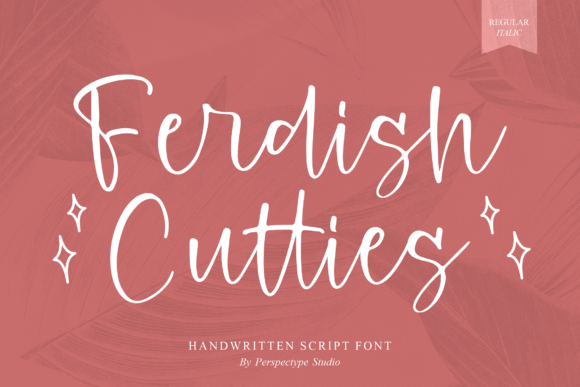
The Perfect Script for the Discerning Designer
There’s nothing quite like the thrill of bringing a design concept to life. The blank page stares back at you, a canvas waiting for the perfect brushstrokes. And then, it happens – the font that elevates your entire vision. For many designers, this moment is the culmination of hours, even days, of searching for the perfect script. Enter Ferdish Cutties Font, a luxurious addition to any design arsenal.
This exclusive font boasts carefully crafted serifs and curves that exude refinement and elegance. Its PUA encoding ensures seamless access to all glyphs and swashes, making it the perfect choice for high-end branding, editorial design, or any project that demands a touch of sophistication. With Ferdish Cutties Font, you can elevate your designs and stand out from the crowd with unparalleled style.
- Unique Characteristics: Unique, cursive font design with a playful and whimsical feel; suitable for creative projects, branding, and packaging
Ferdish Cutties Font Review
Overall, I’m quite impressed with the Ferdish Cutties Font. It’s a quirky, modern font that’s perfect for adding some personality to your designs. Here are some things that stand out to me:
- ✨ Unique character set: The Ferdish Cutties Font has a wide range of characters, including alternate glyphs and ligatures, which makes it perfect for creative projects.
- ✨ Excellent legibility: Despite its playful design, the font is surprisingly easy to read, making it a great choice for body text.
- ✨ Customizable: The font comes with a range of options for customization, including font weights, sizes, and line spacing.
- ⚠️ Limited language support: The font only includes characters for the Latin alphabet, which may limit its use for projects that require other languages.
- ⚠️ Not ideal for small text: While the font is legible at larger sizes, it can become difficult to read at smaller sizes due to its complex design.
Overall, I think the Ferdish Cutties Font is a great choice for designers who want to add some personality to their projects. While it may have some limitations, its unique character set and excellent legibility make it a standout choice for creative projects.